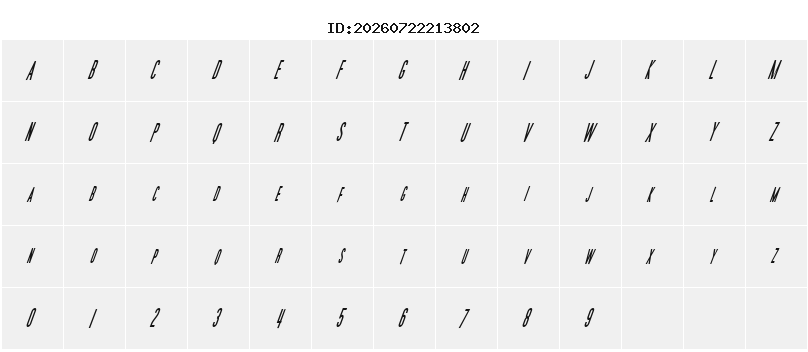
Movie Poster Condensed Preview
• Font Name: Movie Poster Condensed
• Font Style: BoldItalic
• Font ID: Macromedia Fontographer 4.1 Movie Poster Condensed BoldItalic
• Full Font Name: Movie Poster Condensed BoldItalic
• Version: Macromedia Fontographer 4.1 1/31/99
• PostScript Name: MoviePosterCondensedBoldItalic
• Character Count: 98
About Movie Poster Condensed.ttf
Movie Poster Condensed.ttf is a modern, elegant sans-serif font designed for ultimate readability and visual harmony. Perfect for branding, headlines, web design, and print materials.